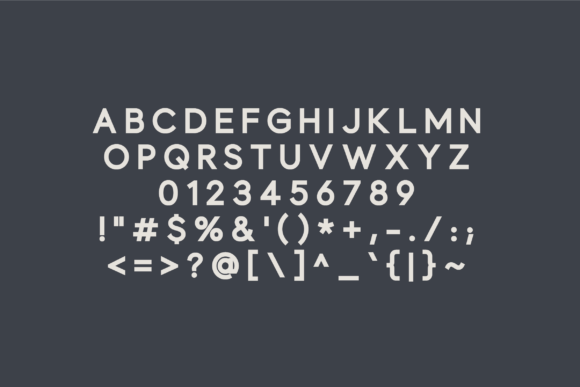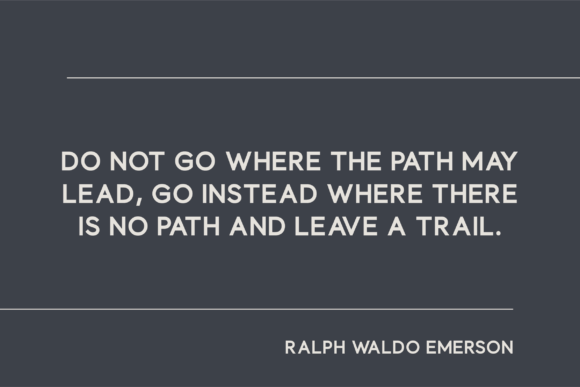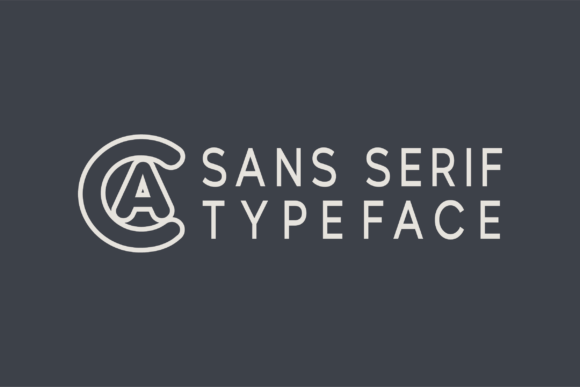
Introducing Boldovia Font: The Ultimate Choice for Impactful Designs
In the world of typography, a font can make or break a design. When it comes to creating visually stunning and professional-grade content, the right font is essential. This is where Boldovia Font comes into play – a bold, modern, all-caps sans-serif font that’s specifically designed for clean, impactful visuals. Whether you’re a designer, craftsperson, or simply someone who appreciates great typography, Boldovia is an excellent addition to your toolkit.
What is Boldovia Font?
Boldovia is a sans-serif font that’s built for clarity and style. Its bold, all-caps design makes it perfect for a wide range of applications, including logos, headlines, posters, packaging, and digital content. With its strong, confident look, Boldovia brings a professional touch to any design without being too complex. This font is ideal for branding, tech, fashion, and creative projects where making a statement is crucial.
Key Features of Boldovia Font
- Bold and Modern Design: Boldovia’s bold, all-caps design ensures that your text stands out and grabs attention.
- Clean and Impactful Visuals: The font’s clean lines and minimalist aesthetic make it perfect for creating visually stunning content.
- Highly Versatile: Boldovia is simple to use and can be applied to a wide range of projects, from logos and headlines to posters and digital content.
- Standard Latin Characters, Punctuation, and Numerals: Boldovia includes a comprehensive set of characters, ensuring that you have everything you need to create professional-grade content.
Why Choose Boldovia Font?
So, why should you choose Boldovia Font for your next design project? Here are just a few compelling reasons:
- Professional-Grade Typography: Boldovia’s bold, modern design ensures that your content looks professional and polished.
- Easy to Read: The font’s clean lines and simple aesthetic make it easy to read, even at smaller sizes.
- Customizable: Boldovia’s versatility means that you can use it in a wide range of contexts, from digital content to print materials.
- Time-Saving: With Boldovia, you can create stunning content quickly and easily, saving you time and effort.
Who Can Benefit from Boldovia Font?
Boldovia Font is an excellent choice for a wide range of designers, craftspersons, and businesses, including:
- Graphic Designers: Boldovia is perfect for creating visually stunning logos, headlines, and posters.
- Fashion Brands: The font’s bold, modern design makes it ideal for fashion brands looking to create a strong, confident visual identity.
- Tech Companies: Boldovia’s clean lines and minimalist aesthetic make it a great choice for tech companies looking to create a professional-grade visual identity.
- Craftspersons: Whether you’re a crafter, artist, or maker, Boldovia is an excellent choice for creating visually stunning content.
How to Use Boldovia Font
Using Boldovia Font is easy. Here are a few tips to get you started:
- Pair it with Other Fonts: Boldovia pairs well with a wide range of fonts, so feel free to experiment and find the perfect combination for your design.
- Experiment with Colors: The font’s bold design makes it perfect for use with bright, bold colors.
- Use it for Headlines and Logos: Boldovia is ideal for creating attention-grabbing headlines and logos that make a statement.
In conclusion, Boldovia Font is an excellent choice for designers, craftspersons, and businesses looking to create visually stunning and professional-grade content. With its bold, modern design, clean lines, and highly versatile nature, Boldovia is perfect for a wide range of applications, from logos and headlines to posters and digital content. So why not give Boldovia a try and see how it can elevate your next design project?